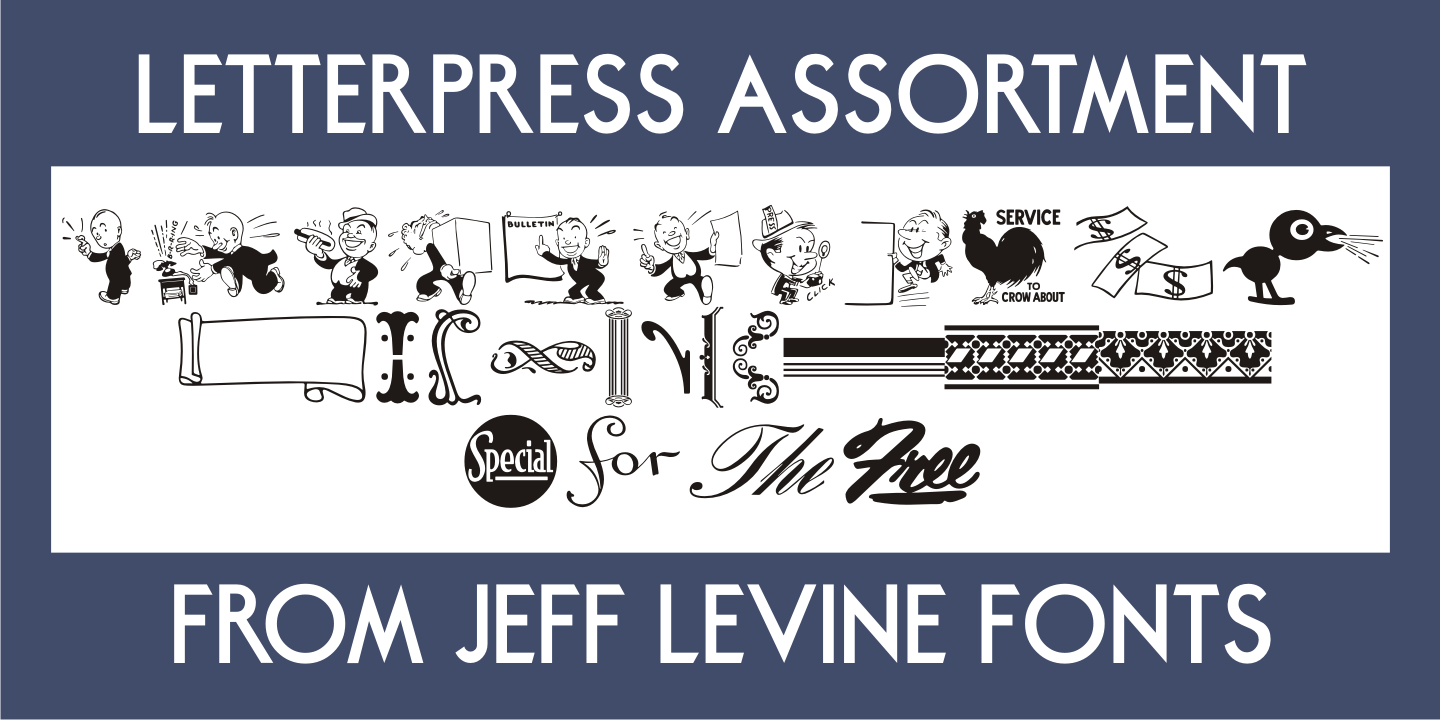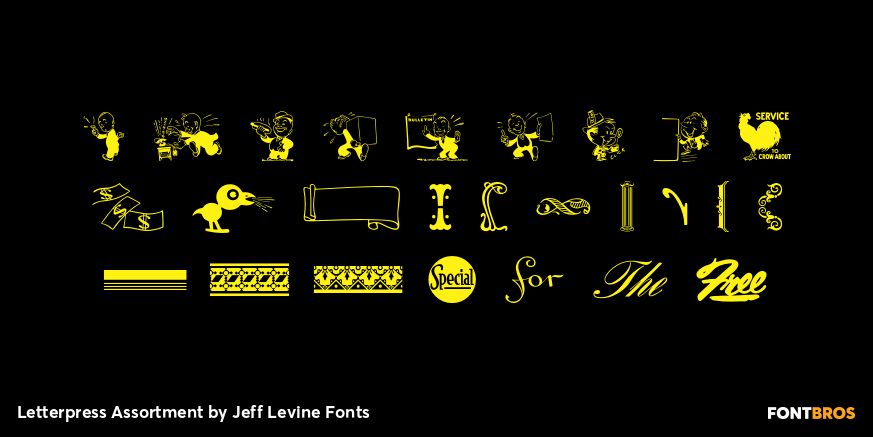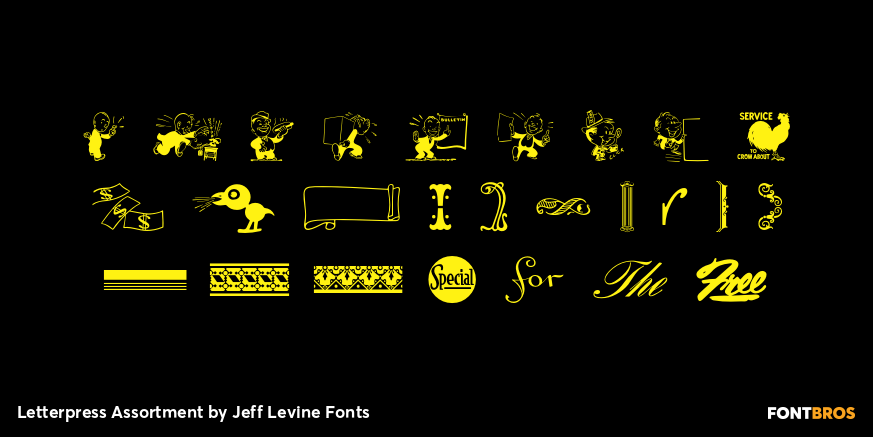
Letterpress Assortment
Border pieces, catch words, head and tail pieces and a generous amount of cartoons comprise Letterpress Assortment JNL. All of the printers' stock cuts were re-drawn from vintage source material.